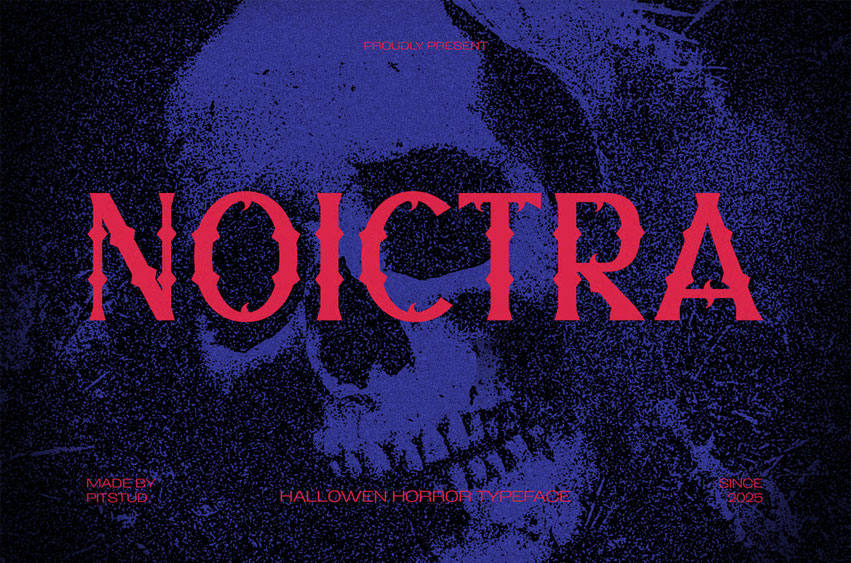
Noictra Font
Noictra Font Gothic Display Decorative is a dark and ornate decorative font designed to bring bold, vintage style and spooky elegance to your creative projects. Featuring sharp, gothic-inspired lines and unique letterforms, Noictra delivers a hauntingly beautiful aesthetic perfect for standout horror themes and dark, mysterious designs.
Whether you’re working on a Halloween event, horror movie poster, or vintage-themed book cover, Noictra offers the perfect balance of readability and chilling visual impact. Its structured forms and distinctive details make it ideal for logos, product packaging, advertising, website headers, and promotional materials.
• Gothic & Ornate Design: Distinctive decorative style with a dark, decorative edge.
Noictra combines vintage elegance and spooky innovation to create a typeface that stands out while remaining functional. Whether for branding, advertising, or digital media, Noictra adapts effortlessly to elevate your designs.
• Brand Identity: Give your business a bold, spooky edge.
• Advertising & Marketing: Command attention in campaigns.
• Editorial Design: Create eye-catching magazine headlines.
• Product Packaging: Enhance vintage and horror-inspired products.
• Logo Design: Establish a distinctive visual signature.